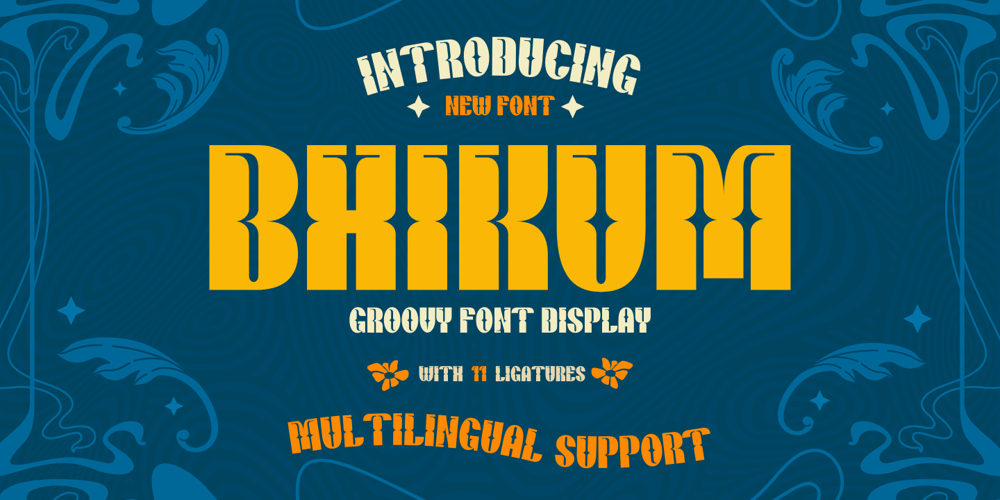
Bhikum Font Family was designed by Rozikan and published by Twinletter. Bhikum contains 1 styles and family package options. Bhikum is a modern, stylish and timeless font. This typeface is perfect for a logo, poster, or simple branding project, featuring a bold design and smooth curves.The design trends of the 1970s inspired this Bhikum display font. It has a groovy, classic, and fun feel, but also has aesthetic value for its unique and memorable design. Use this font to add some cool style to your designs!What’s Included :- All glyphs Iso Latin 1- Simple installations- We highly recommend using a program that supports OpenType features and Glyphs panels like many Adobe apps and Corel Draw so that you can see and access all Glyph variations.- PUA Encoded Characters – Fully accessible without additional design software.- Fonts include Multilingual support